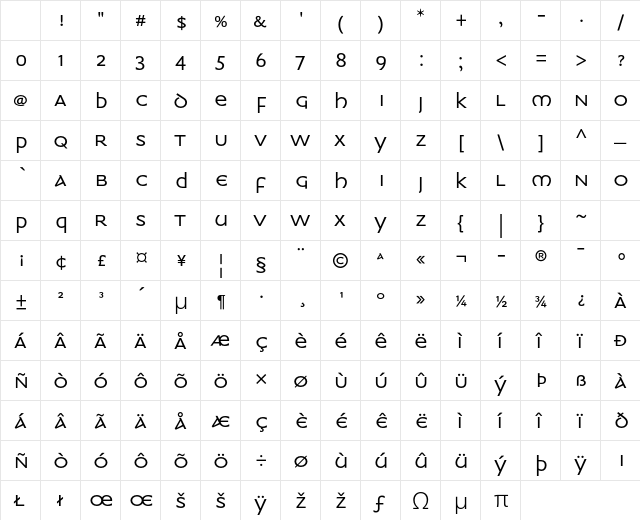
Medea ITC Std Book
Designer: Silvio Napoleone
Design Context for Medea ITC Std
Medea ITC Std is a composed and adaptable typeface that performs quietly and consistently across a wide range of design contexts.